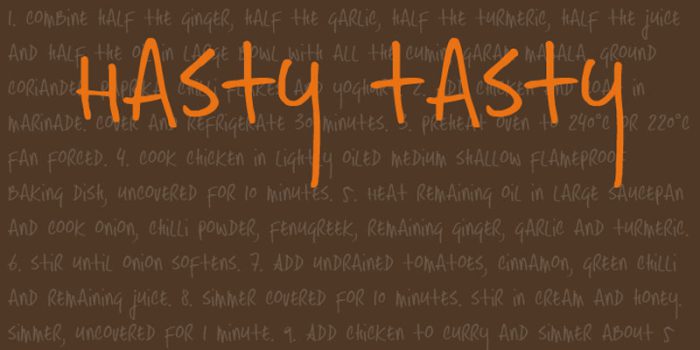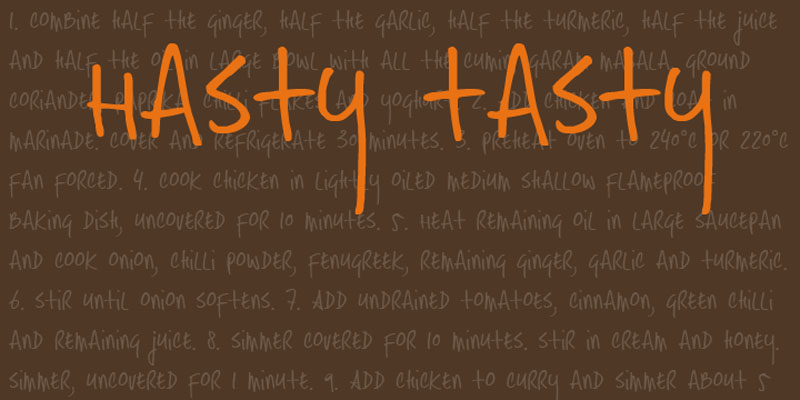
Hasty Tasty
Hasty Tasty looks like a hastily penned down recipe, a quickly jotted down note or just someone’s messy handwriting. It is legible, useful and comes with a full range of accents.